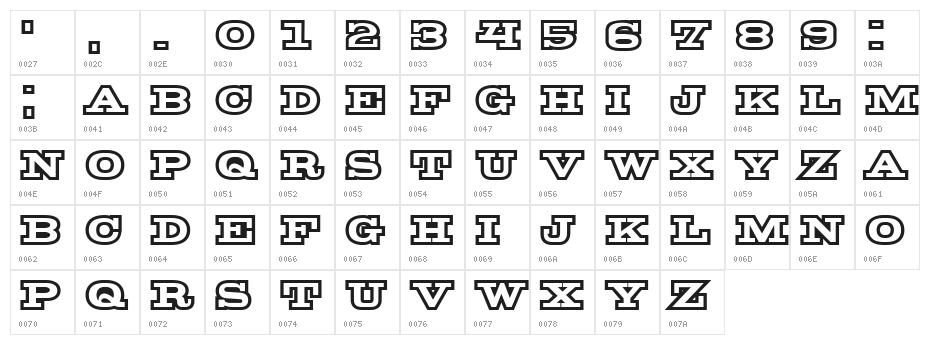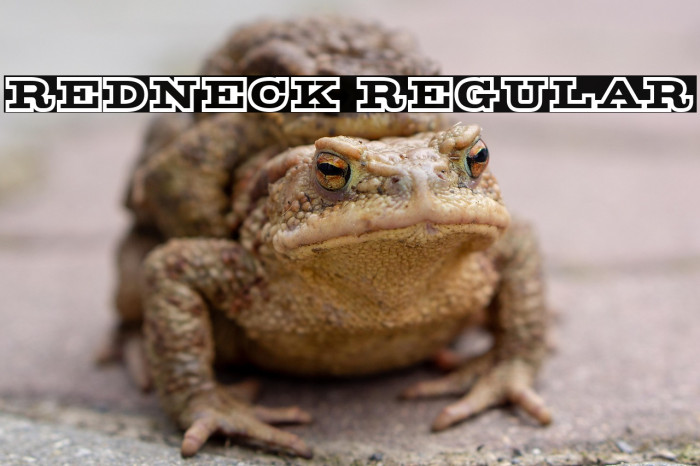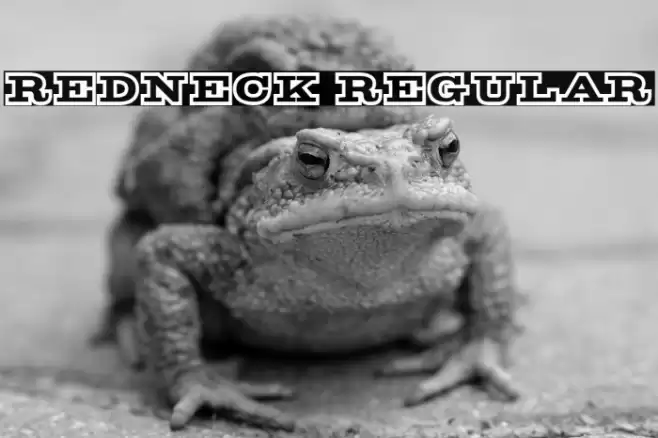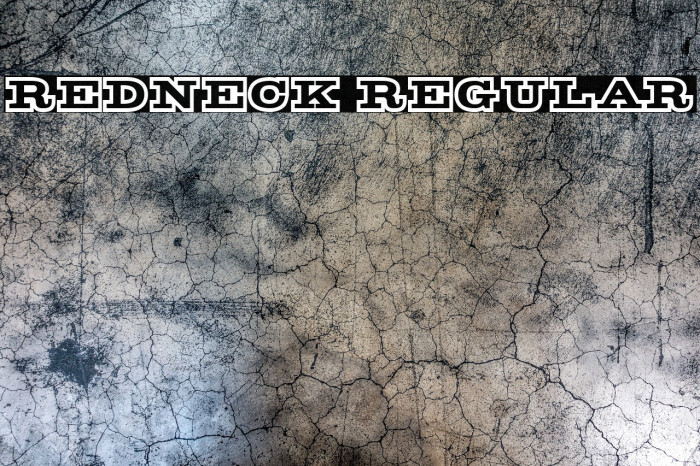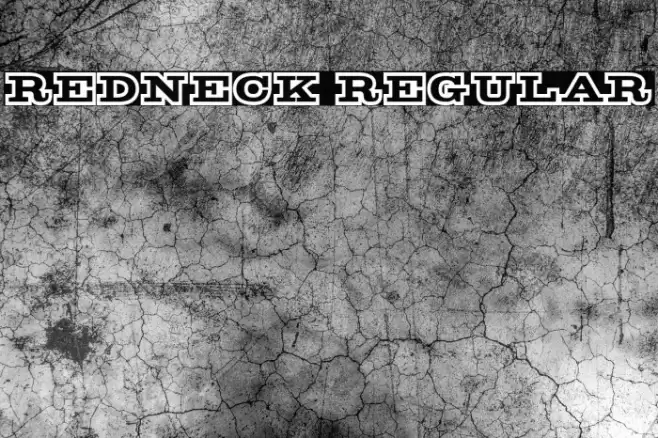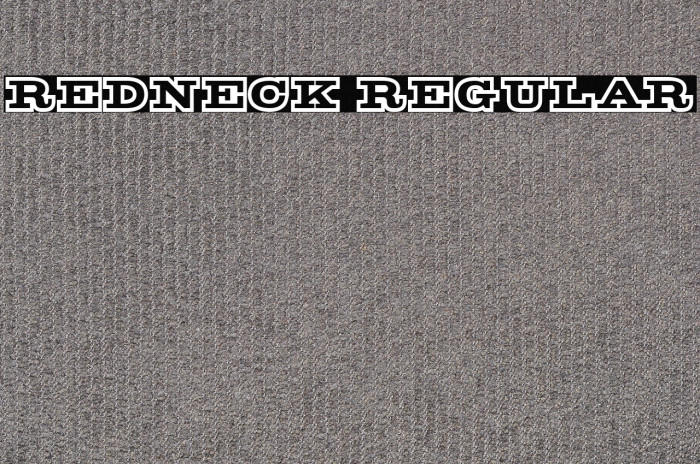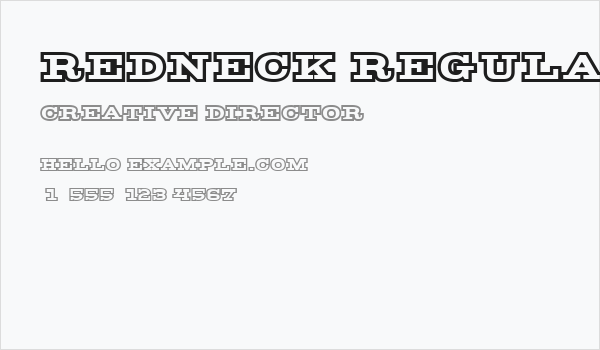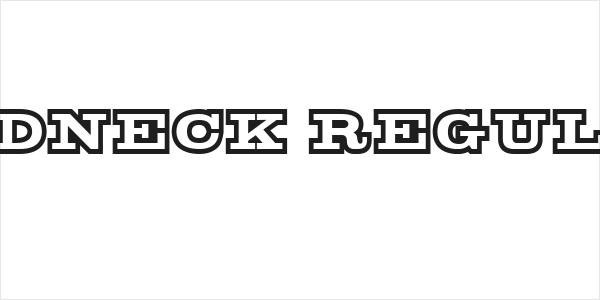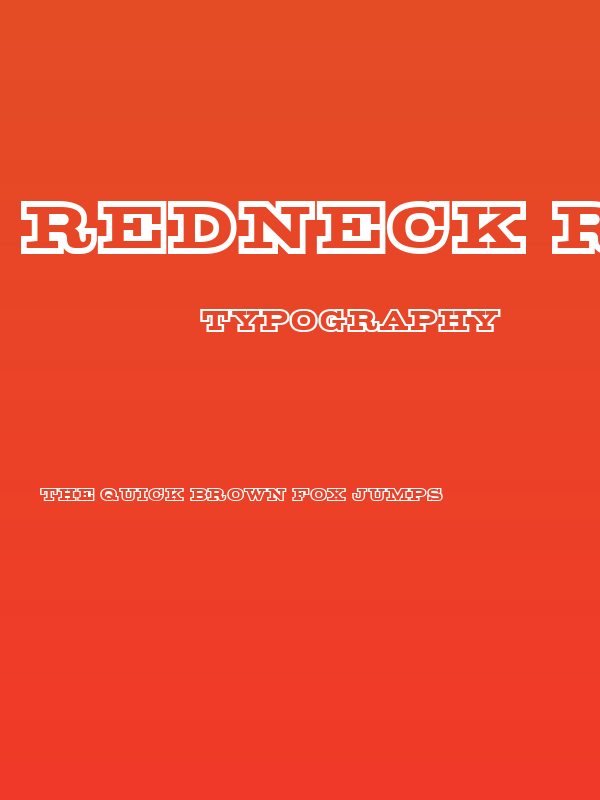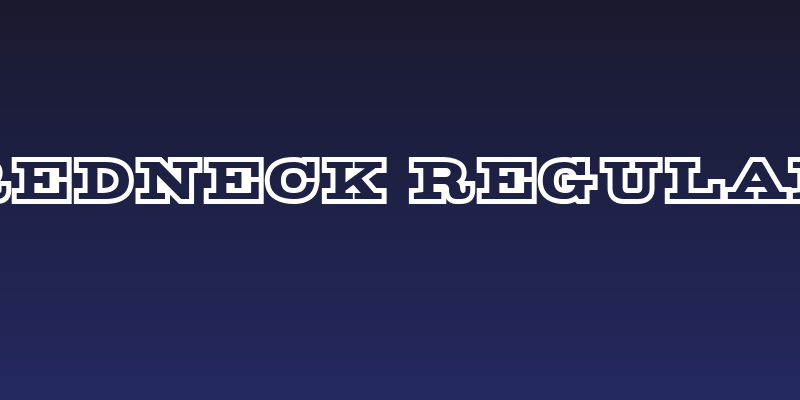
Redneck Regular Font
Redneck Regular Description
This font features a bold, decorative style with a strong presence. The characters are outlined, giving them a three-dimensional effect that stands out. The uppercase letters are uniform in height and width, creating a balanced and structured appearance. The numbers and special characters follow the same design principles, ensuring consistency across all elements. This font is ideal for projects that require a bold and eye-catching typeface, such as posters, headlines, or branding materials. Its unique style makes it suitable for creative and playful designs.
| Proposed Projects | Ideal for posters, headlines, branding materials, and creative designs. |